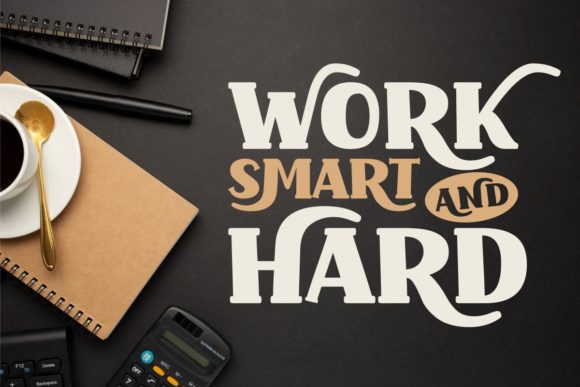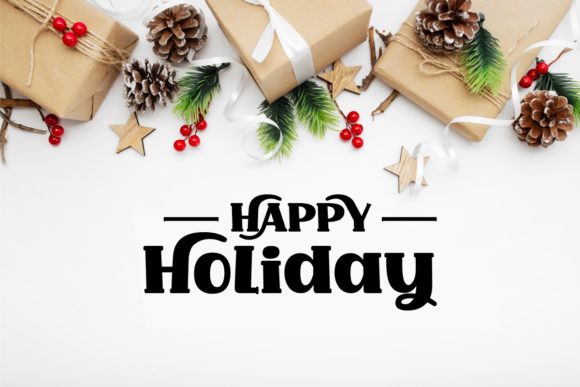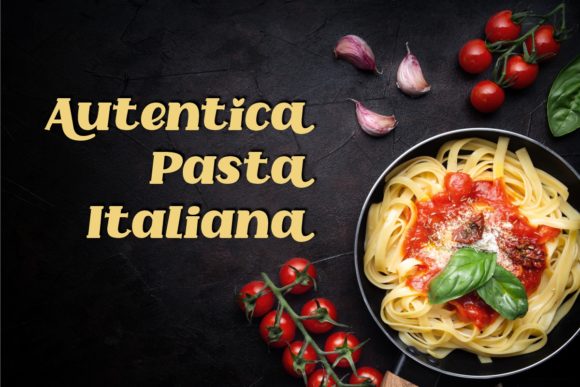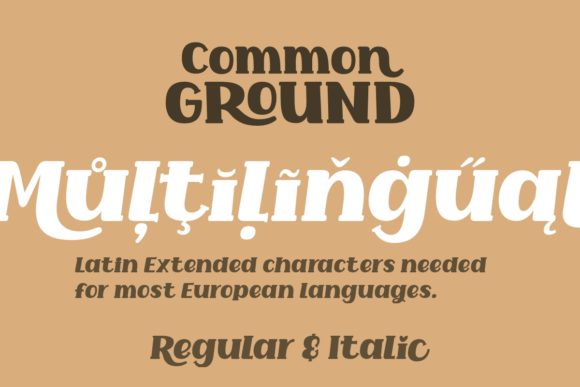
Introducing Common Ground Font: The Urban-Inspired Display Font
Are you tired of using the same old fonts in your designs? Do you want to add a touch of urban flair to your projects? Look no further than Common Ground Font, a bold and stylish display font that’s perfect for making your designs stand out.
What is Common Ground Font?
Common Ground Font is a modern display font that’s inspired by the urban landscape. Its bold and edgy design makes it ideal for use in a variety of projects, from posters and flyers to logos and branding materials. With its unique blend of style and sophistication, Common Ground Font is sure to grab attention and leave a lasting impression.
Key Features of Common Ground Font
- Bold and Stylish Design: Common Ground Font features a bold and stylish design that’s perfect for making a statement.
- Urban Influences: The font’s urban-inspired design gives it a unique and edgy feel that’s perfect for modern designs.
- Highly Versatile: Common Ground Font can be used in a variety of projects, from print materials to digital designs.
- Easily Readable: Despite its bold design, Common Ground Font is easily readable, even at smaller sizes.
Who is Common Ground Font for?
Common Ground Font is perfect for designers, crafters, and anyone looking to add a touch of urban style to their projects. Whether you’re a professional designer or a DIY enthusiast, this font is sure to inspire your creativity and help you create stunning designs.
How to Use Common Ground Font
Common Ground Font can be used in a variety of ways, from adding a bold headline to a poster or flyer to creating a stylish logo or branding material. Here are a few ideas to get you started:
- Posters and Flyers: Use Common Ground Font to create eye-catching headlines and titles for your posters and flyers.
- Logos and Branding: Create a stylish and memorable logo or branding material using Common Ground Font.
- Social Media Graphics: Use Common Ground Font to add a bold and stylish touch to your social media graphics.
Tips for Getting the Most out of Common Ground Font
Here are a few tips for getting the most out of Common Ground Font:
- Experiment with Different Sizes: Common Ground Font looks great at a variety of sizes, so don’t be afraid to experiment and find the perfect size for your project.
- Pair with Other Fonts: Common Ground Font pairs well with a variety of other fonts, so try pairing it with a sans-serif font for a stylish contrast.
- Use in Combination with Images: Common Ground Font looks great in combination with images, so try using it to add a bold and stylish touch to your designs.